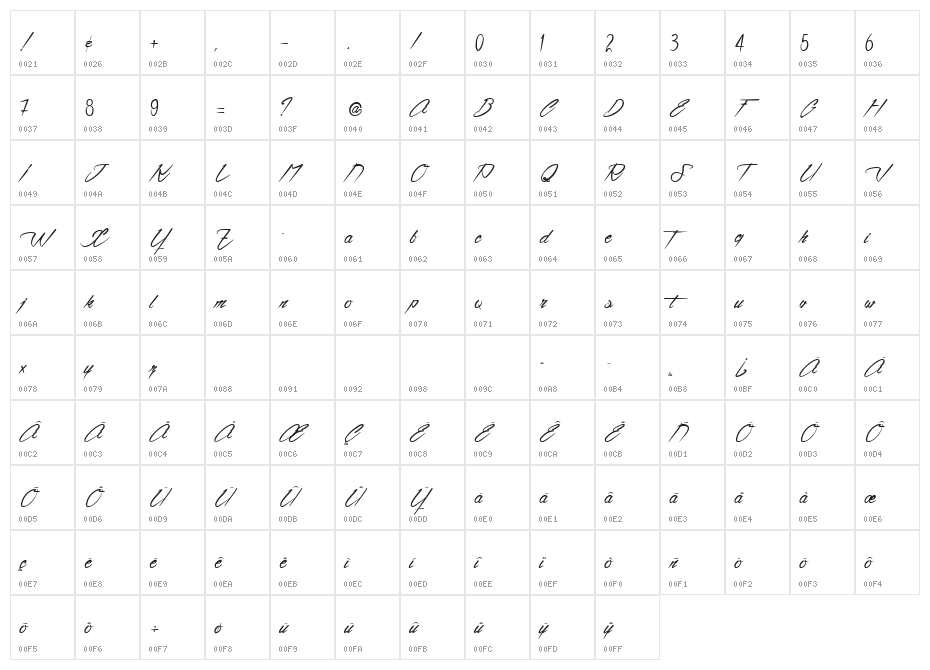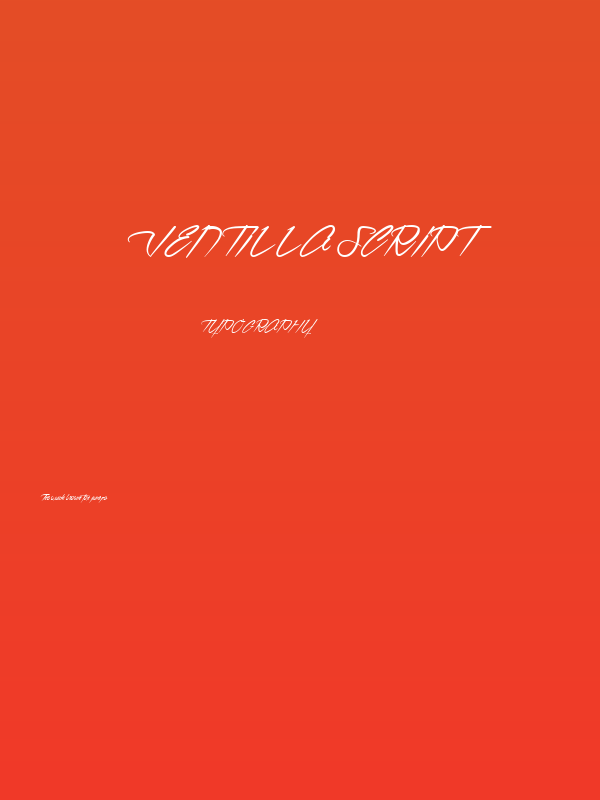
Ventilla Script Font
Ventilla Script Description
This elegant script font features a fluid, cursive style with a distinctive slant, giving it a dynamic and sophisticated appearance. The characters are interconnected, creating a seamless flow that mimics natural handwriting. The uppercase letters are ornate, with flourishes that add a touch of flair, while the lowercase letters maintain a consistent rhythm. The numerals are stylishly integrated into the script, maintaining the overall aesthetic. Special characters are thoughtfully designed to complement the script's elegance. This font is perfect for projects that require a personal, artistic touch.
| Overall Style | Elegant |
| Use Case | Logos, Invitations, Artistic projects |
| Proposed Projects | Ideal for wedding invitations, greeting cards, branding, and any project requiring a personal, artistic touch. |